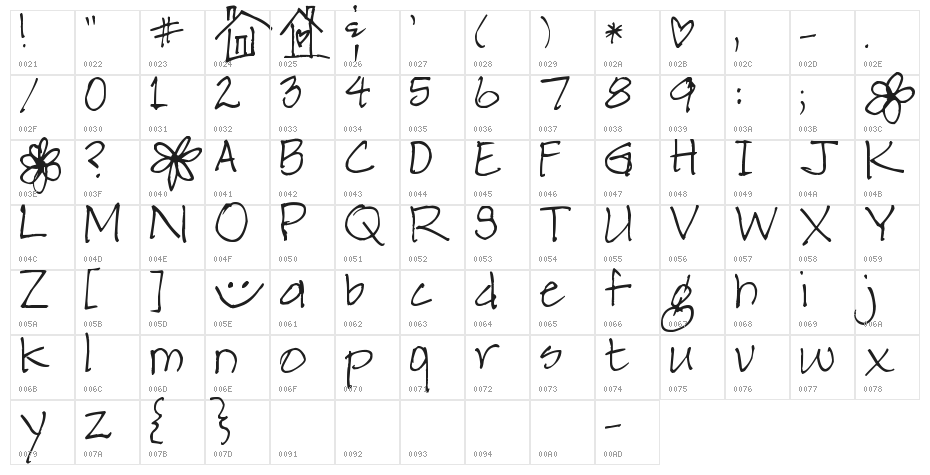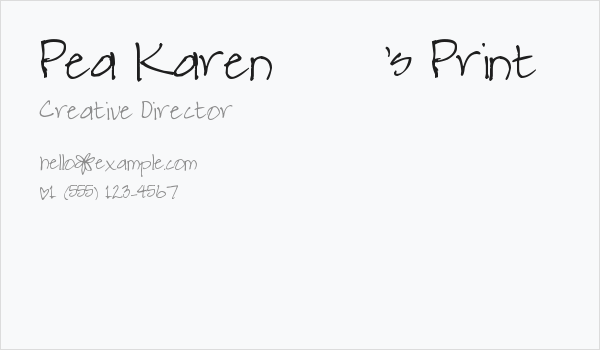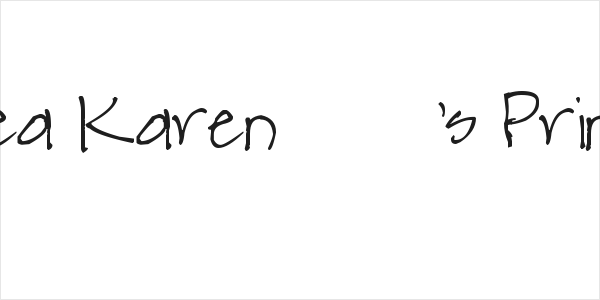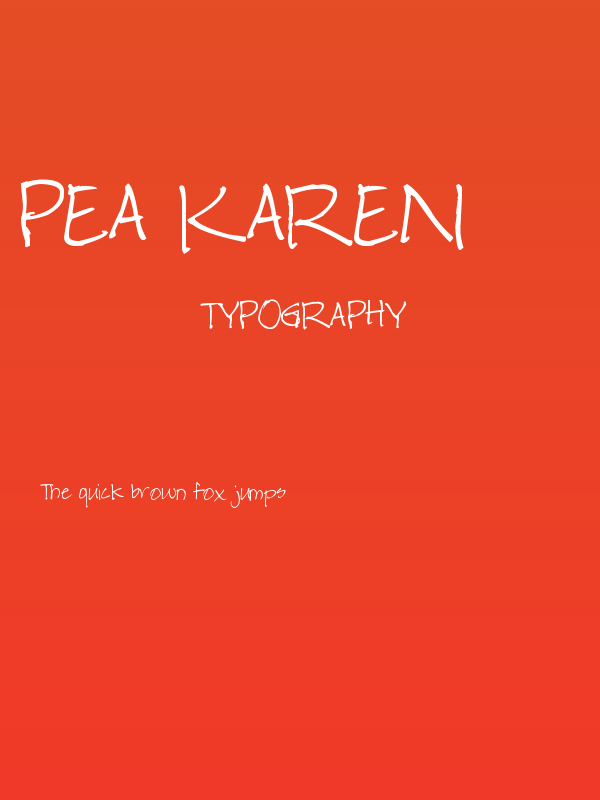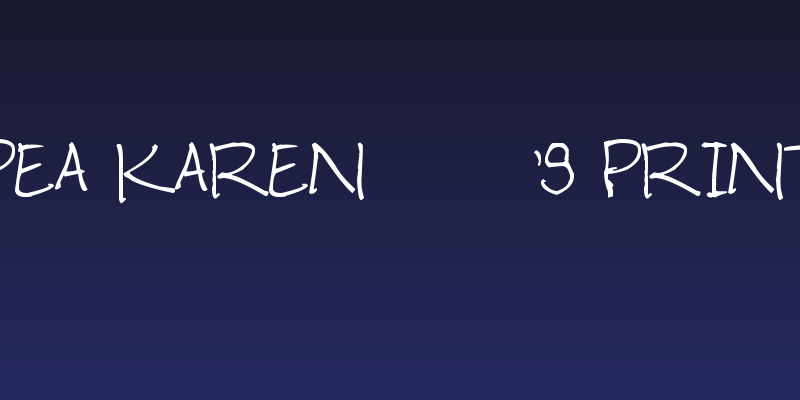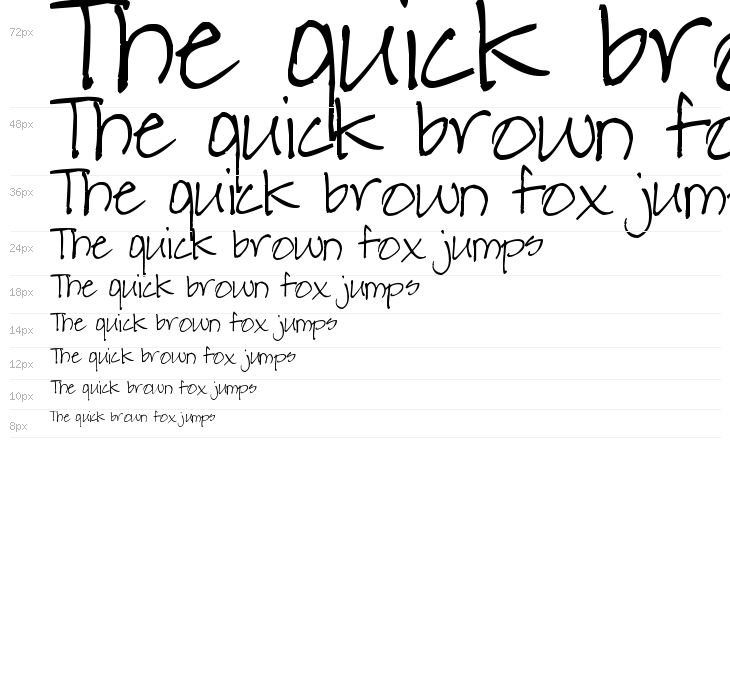
Pea Karen's Print Font
Pea Karen's Print Description
This font exudes a playful and informal charm, characterized by its handwritten style that mimics the natural flow of penmanship. The letters are slightly irregular, with varying stroke thickness that adds a personal touch to the text. The uppercase and lowercase letters maintain a consistent style, while the numbers and special characters are crafted with the same whimsical flair. The overall appearance is casual and approachable, making it ideal for projects that require a personal or creative touch.
| Proposed Projects | Perfect for greeting cards, personal notes, creative projects, scrapbooking, and informal branding. |